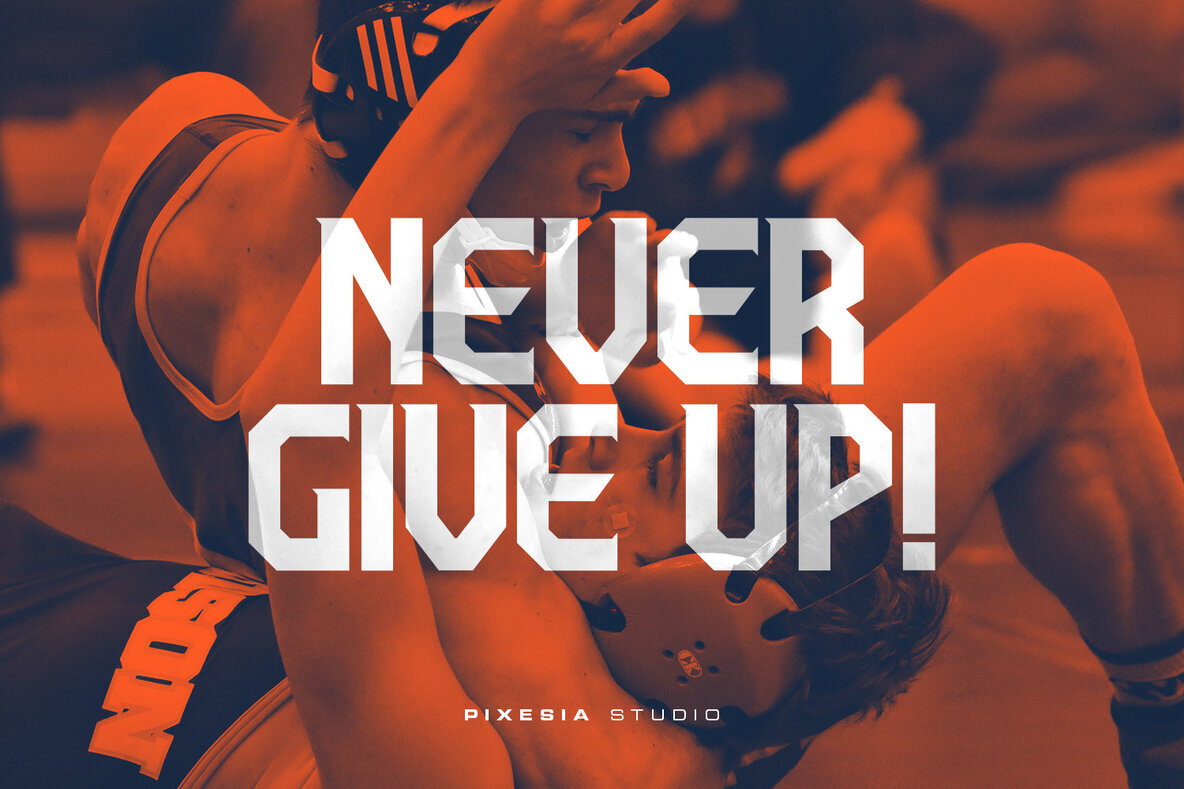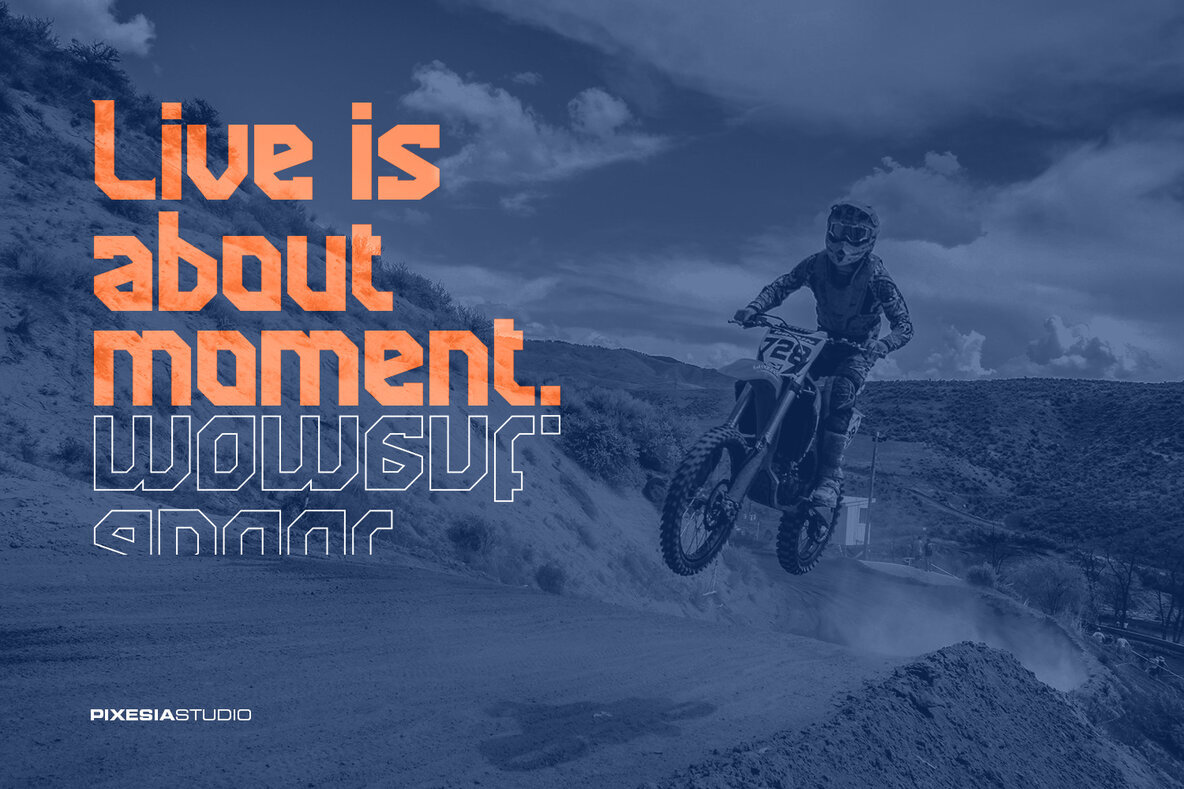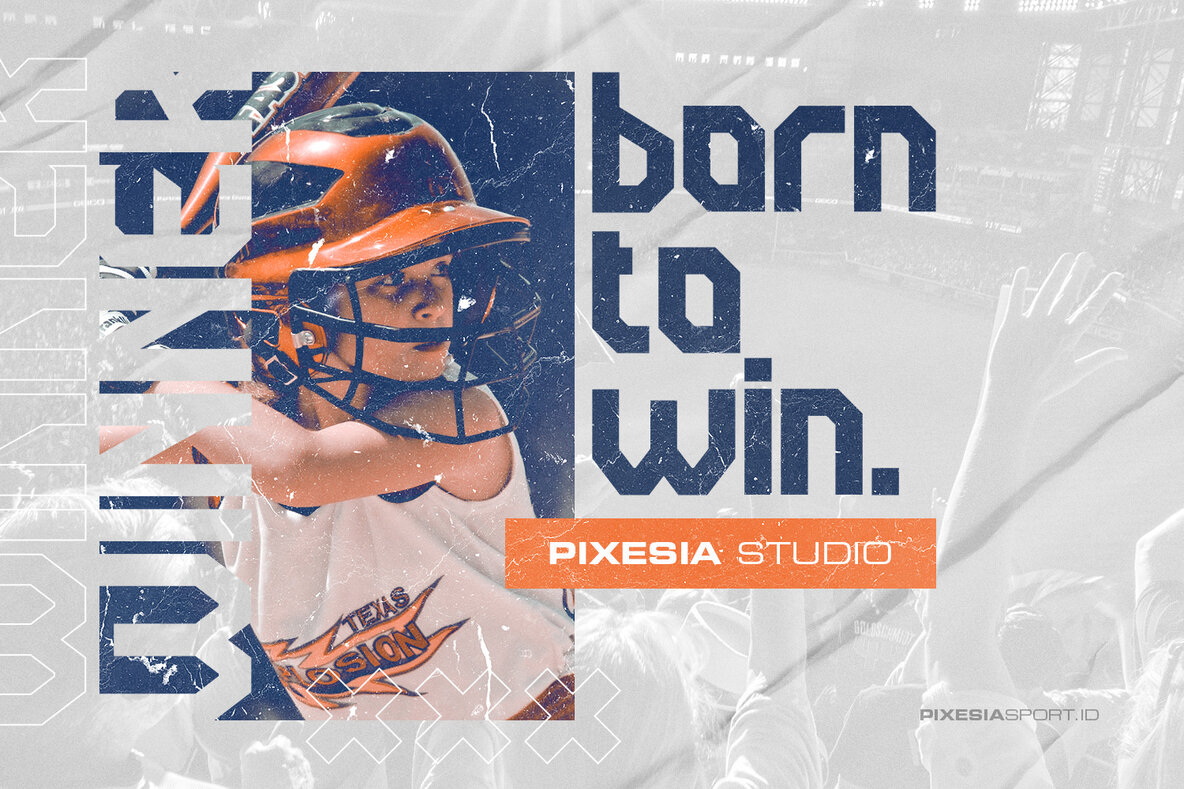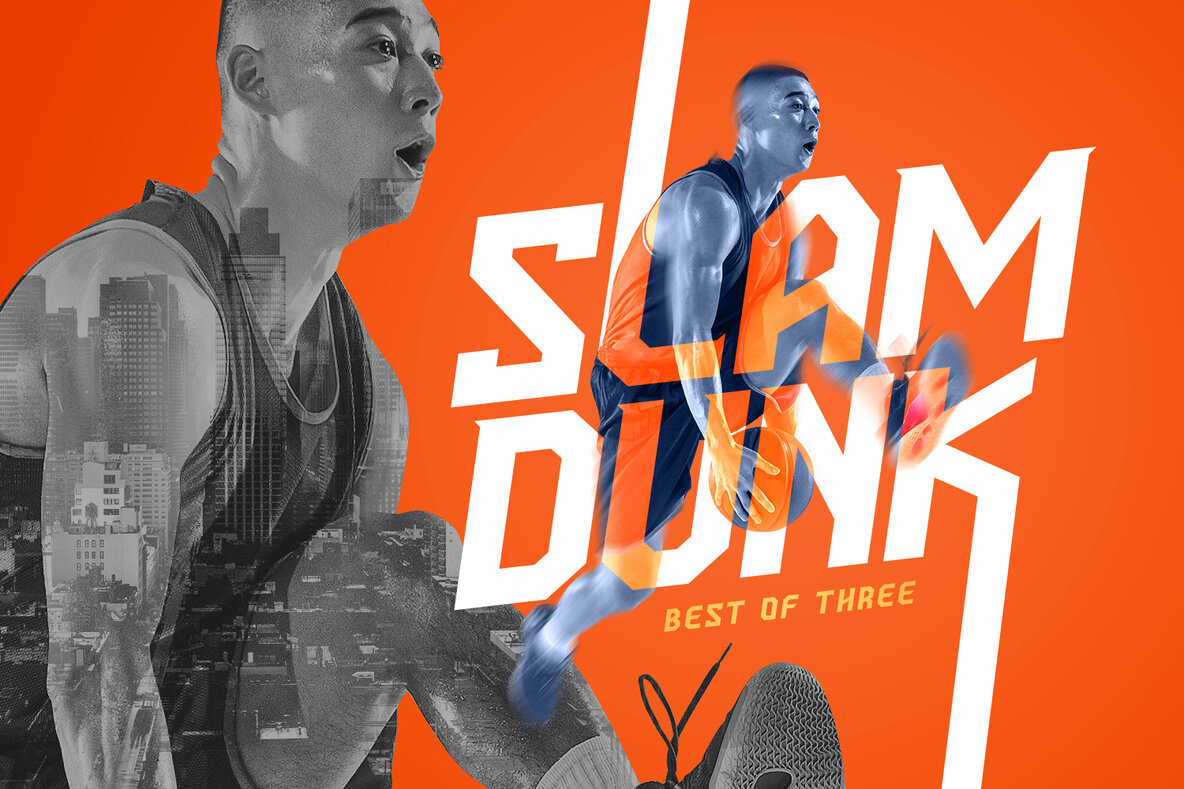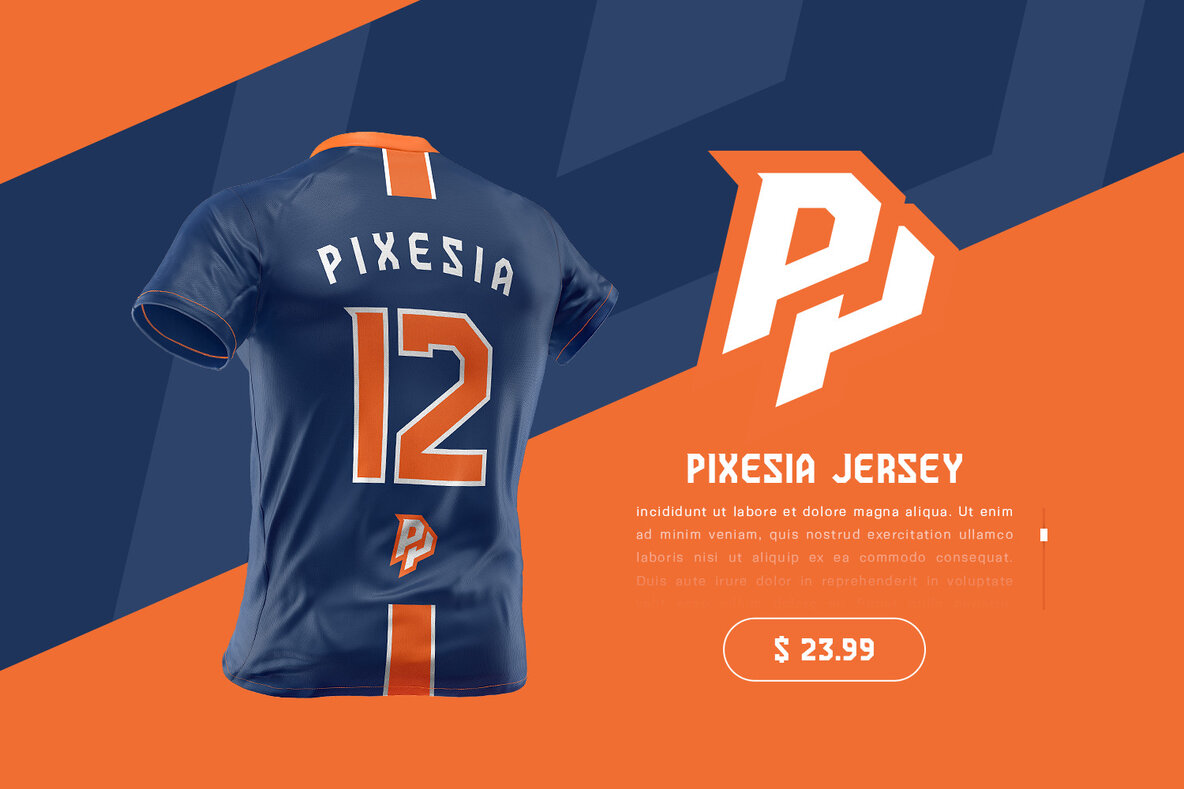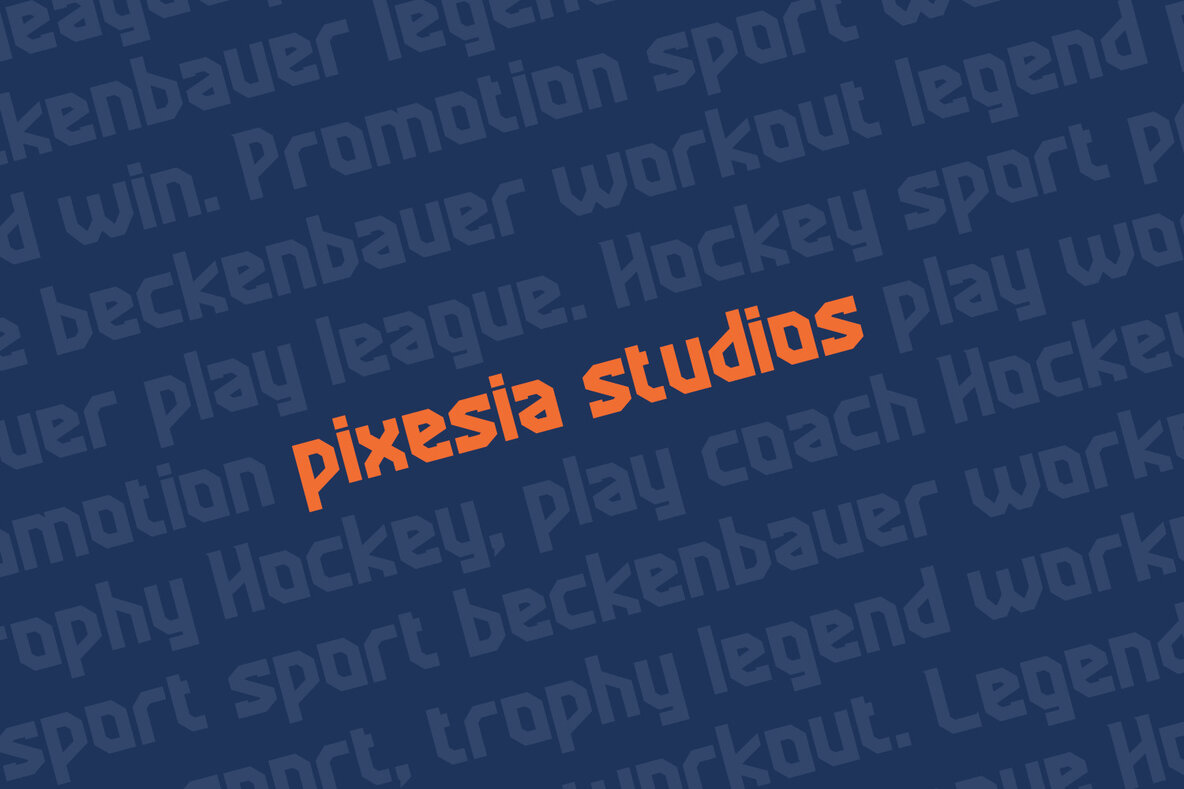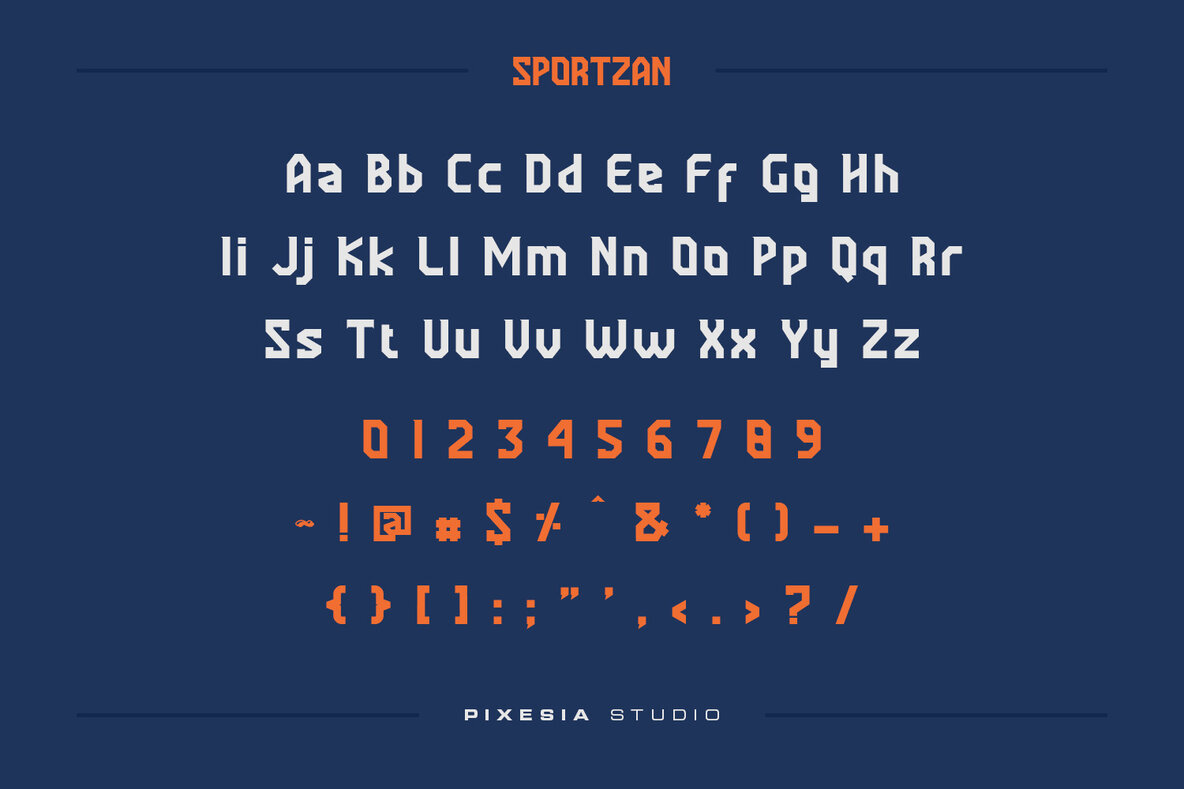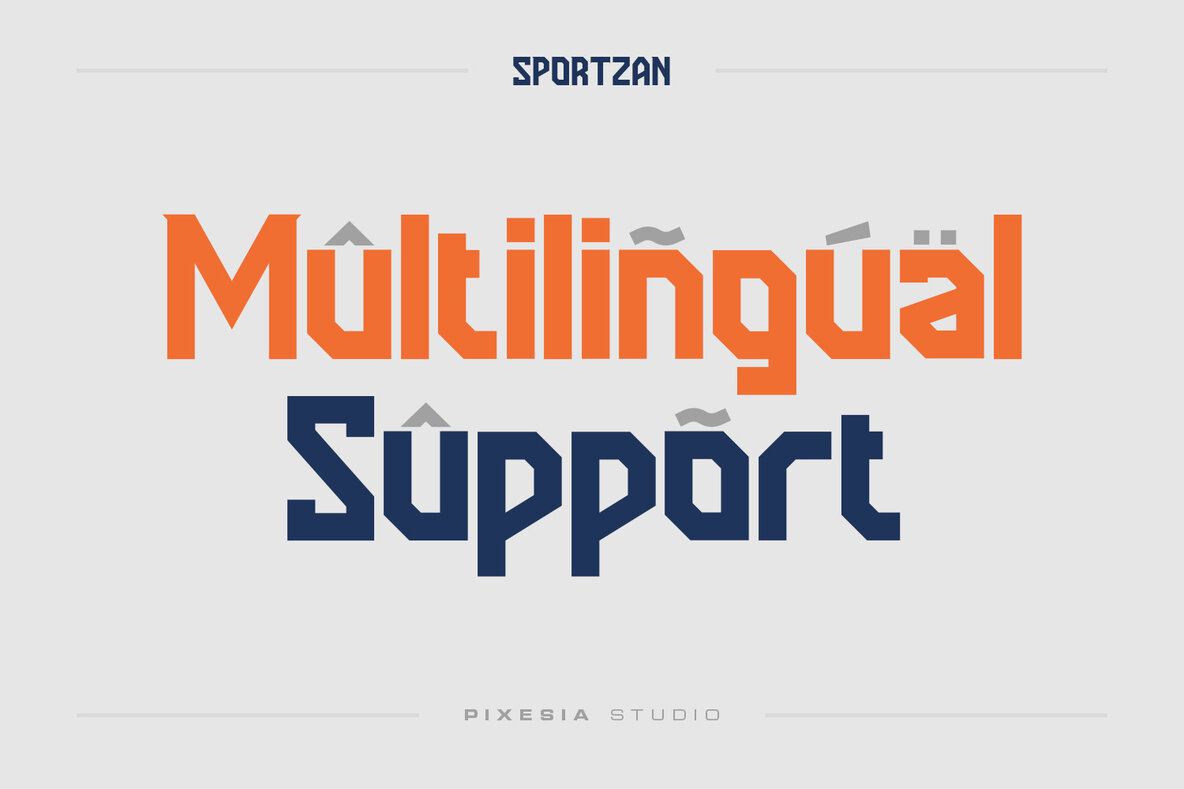
Sportzan Font
Sportzan
Infuse your projects with the vibrant energy of Sportzan, a dynamic typeface that embodies a lively and sporty aesthetic. With its sharp corners, Sportzan evokes strength and vitality, making it an excellent choice for sport-related projects. Whether you are designing a poster, a jersey, or a powerful slogan, Sportzan provides a bold presence.Sportzan: Bold Typeface for Energetic Designs